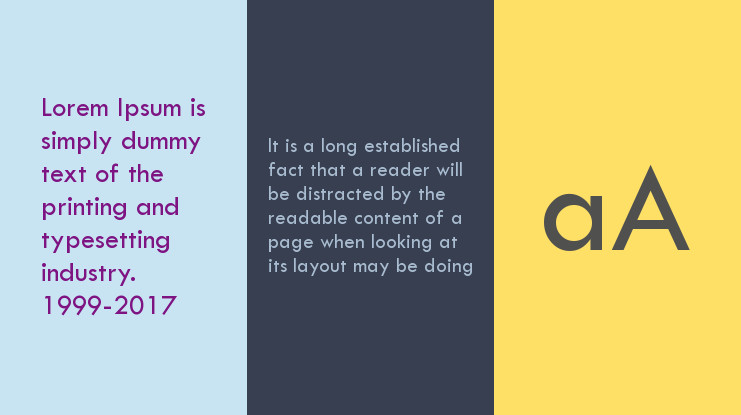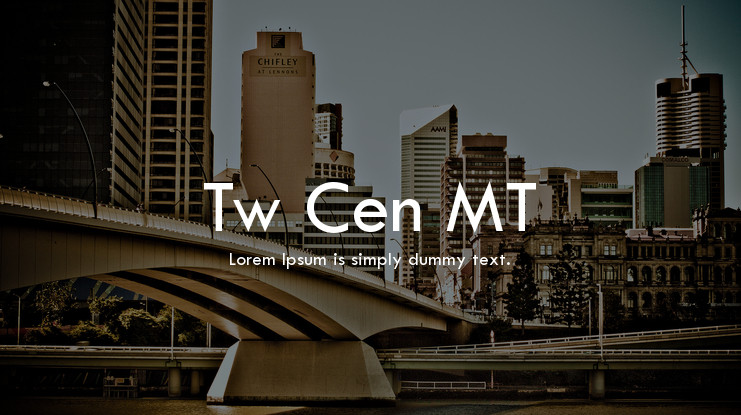
Tw Cen Mt Font
Tw Cen Mt Font is famous for its work inner adobe and Wikipedia. This typeface is also famous for its pairing function and it’s also a member of the CSS family. It has grown to be as fast as created for the number one author inside the dust just like the bariol font. And this quantity has increased each day with the modern-day.
The primary is a font this is created with the beneficial content material of the use of this font. He took the idea from the beginning. This font is used for t-shirt printing and emblem designing abilities. Tw Cen Mt Font Free Each form of typefaces has a buttercup handwritten font.
So, do no longer make any bypass for using it for your duties. It has a vintage look with a gift-day twist and all-caps typesetting. It’s miles a brilliant crayola font. That may be downloaded for the exceptional content material fabric look.
This font in developing a photo, rate fashions, and in every particular designing perform in which protected in the rational recommendation.